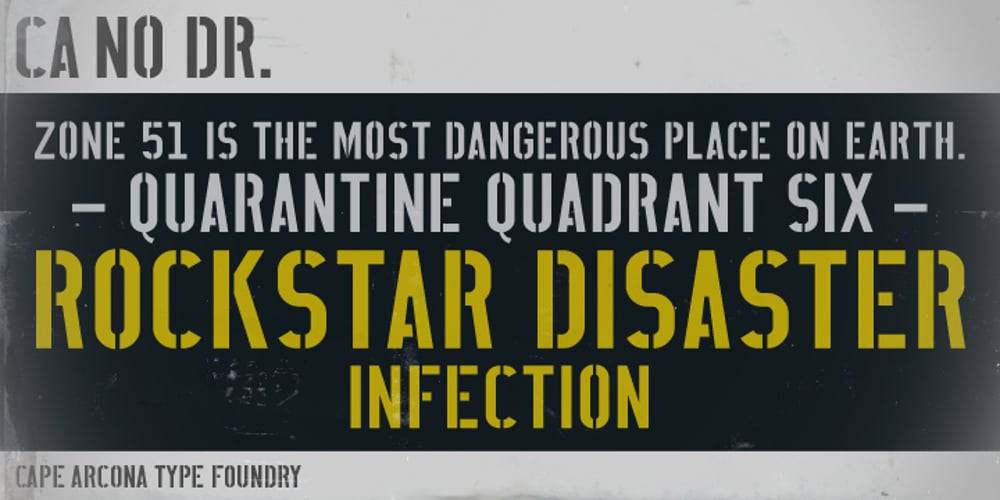
CA No Dr. Font Family was designed by Thomas Schostok and published by Cape Arcona Type Foundry. CA No Dr. contains 10 styles and family package options. No Dr. was inspired by an old movieposter lettering for the 1962 movie “James Bond: Dr. No”. Just like the original Dr. No, No Dr. has a diabolical charm. It was developed into a font family that combines distinctiveness with versatility. It has a good readibility as a textfont but also looks great as a Headline. The two widths and the two weights give you a big choice. Intended to become an interesting alternative to the much used DIN Schrift, it has now developed into a highly functional family of it’s own.